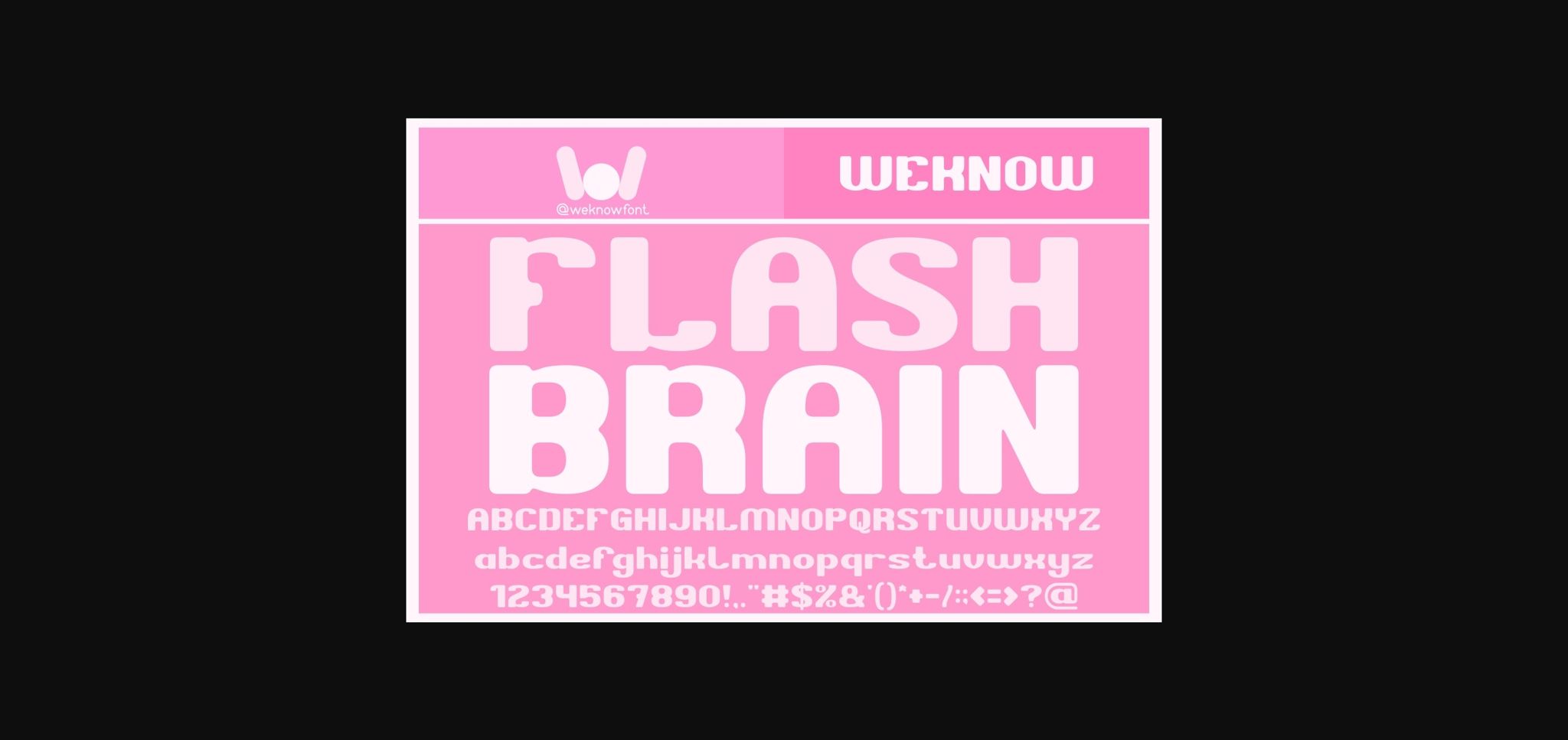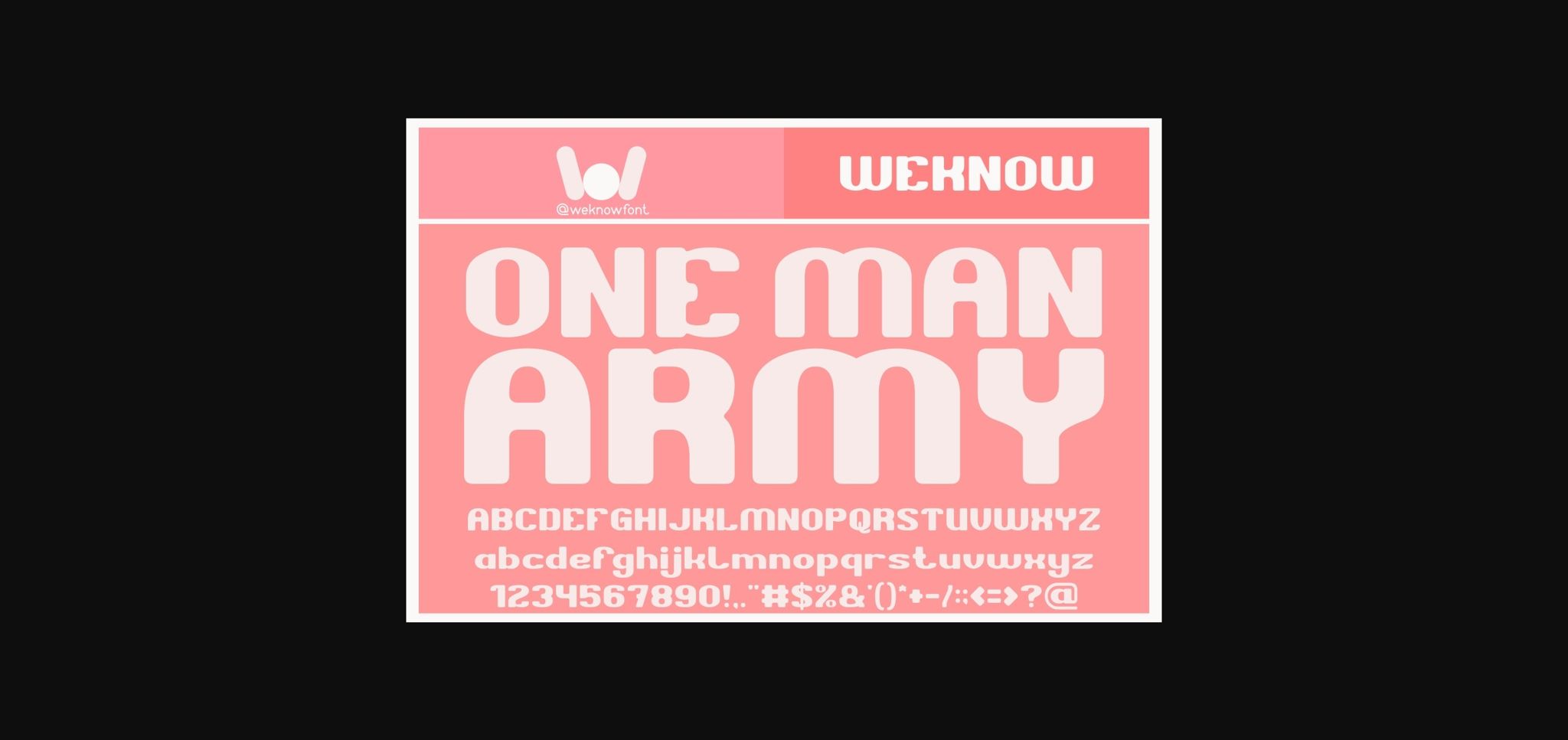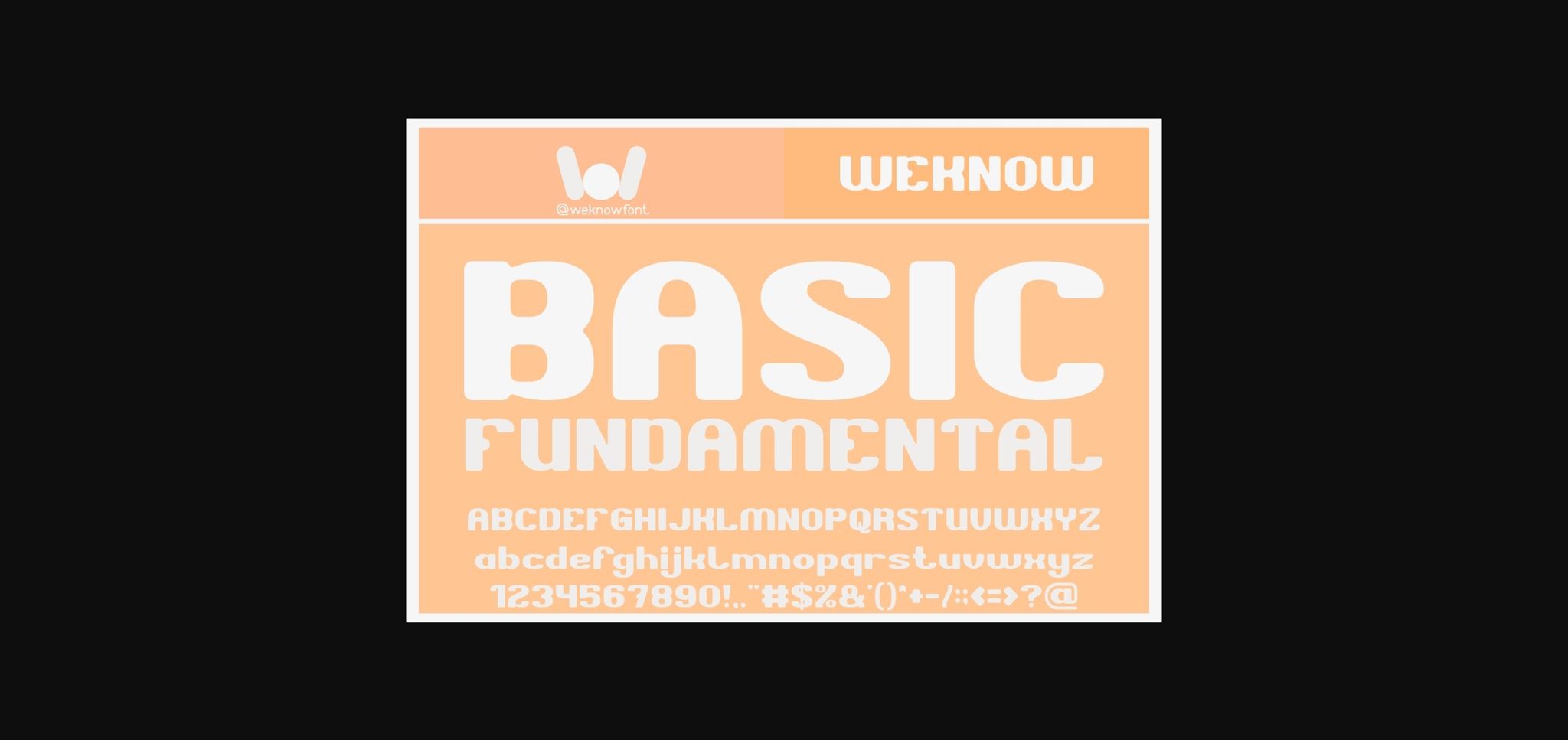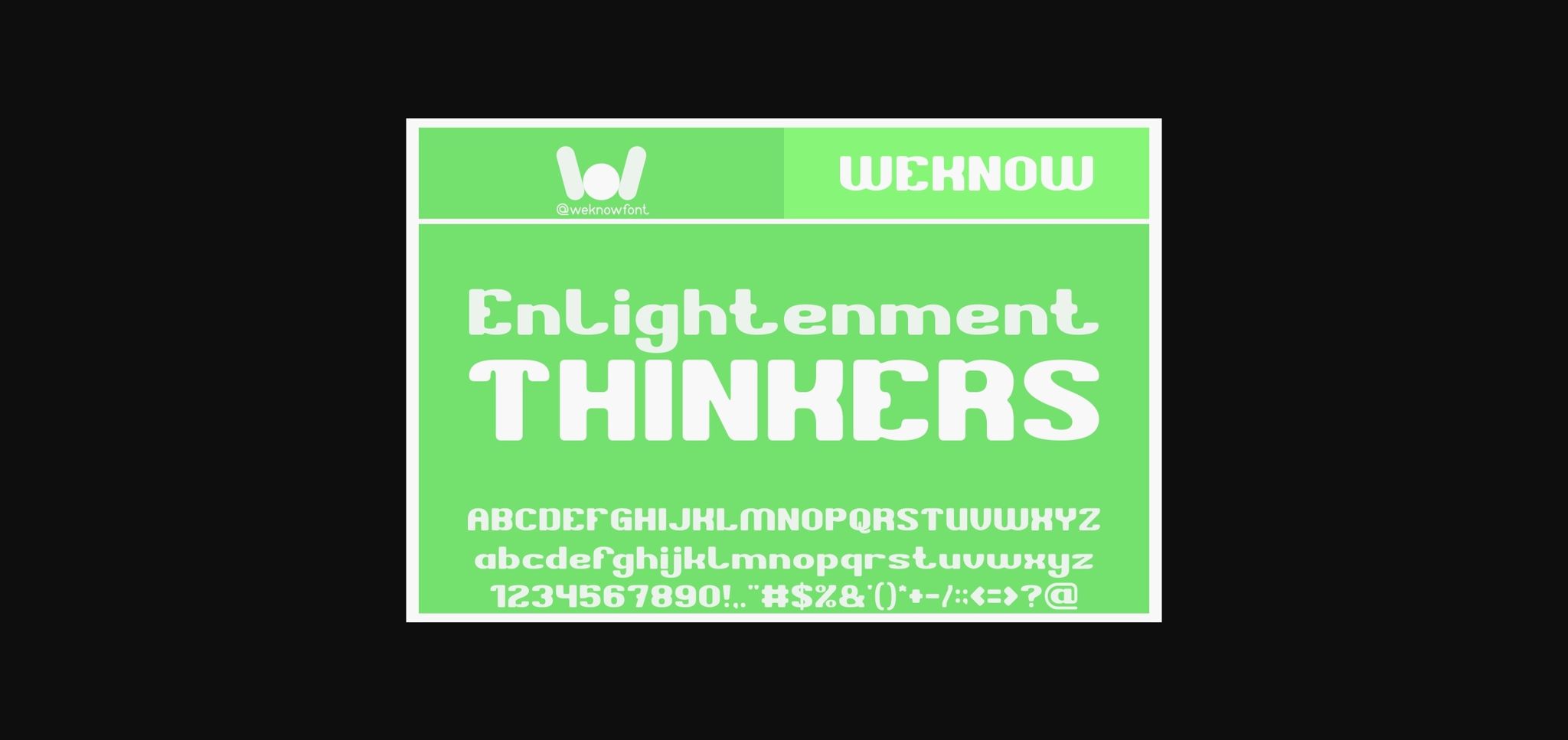
Flash Brain Font
About Flash Brain Font
Flash Brain is a cool and modern sans serif font. Contemporary and fresh, it is perfect for any design you wish to create. Add it to your creative projects and make them outstanding!